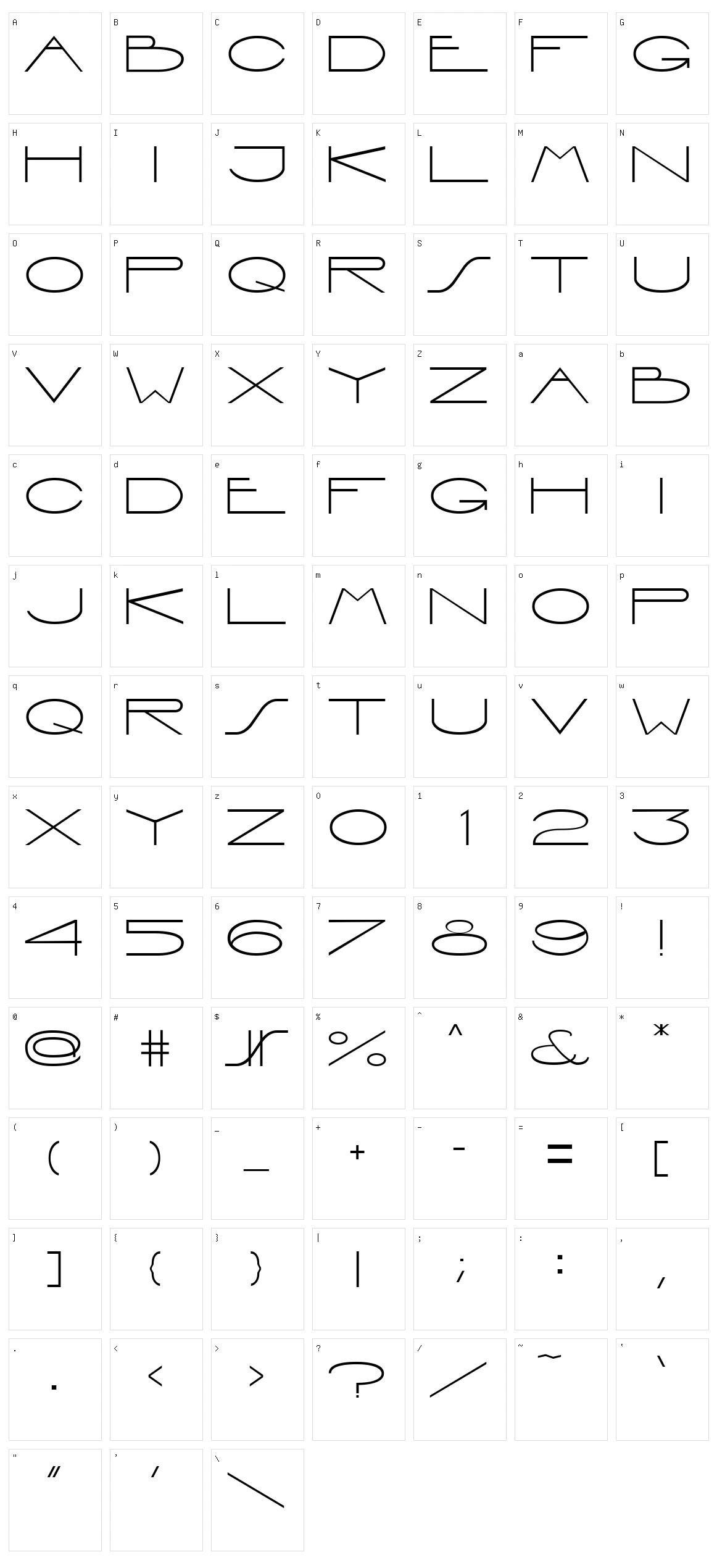
Interdimensional
Designed by: Jim Pingle
Q. WTF is Interdimensional?
A. Interdimensional is a font based on the lettering in the FOX show Sliders.
Q. Is this a complete font?
A. Yep, and if you look hard enough you'll find a couple unexpected things ;)
Q. So how close is this to the actual font used on Sliders?
A. As close as I could possibly make it from what I had to go by.
Q. How long did this take you to make
A. About 2 weeks to a month, actually.
Q. Was it difficult?
A. Yes and no. Fonts are drawn using vectors, or lines and curves that are defined by a direction an a magnitude. This is why fonts can be so varied in size with little to no quality loss. (Older bitmap fonts get blocky at larger sizes). Using vectors isn't difficult, but hard to get used to.